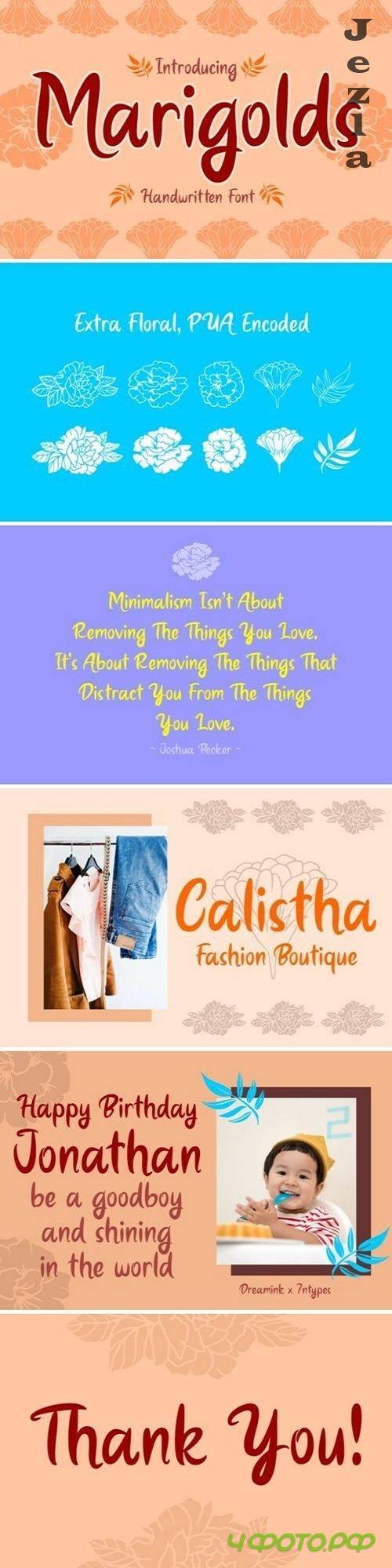
Marigolds Font
Marigolds is a magical handwritten font carefully created with a touch of elegance. This is a beautiful combination of timeless elegance and authentic calligraphy. It features an incredibly classic style, while still keeping a friendly feel.